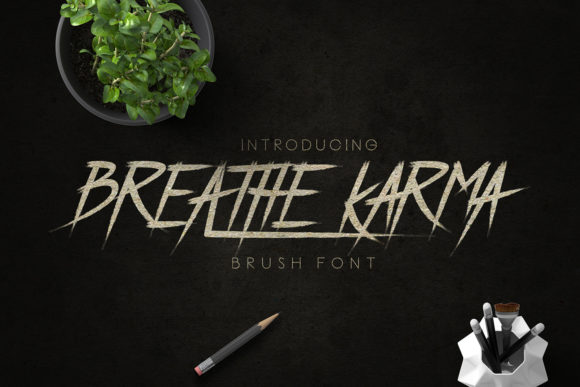
**Introducing 'Breathe Karma' - The Font That Will Captivate Your Senses**
Welcome to the world of Breathe Karma, a captivating brush-style font that will ignite your imagination and leave an imprint on your designs like no other. This exquisite creation by madeDeduk is a true masterpiece, a vintage-inspired gem with a contemporary twist that will elevate your projects to extraordinary heights.
Every stroke of Breathe Karma is a testament to the passion and artistry that went into its creation. Its elegant curves and playful flourishes evoke a sense of nostalgia, transporting you to an era of timeless wonder. Yet, this font is anything but old-fashioned; it embraces the modern with its versatility and effortless style, making it the perfect choice for a wide range of design ventures.
Whether you're crafting stunning logos, enchanting posters, or heartfelt invitations, Breathe Karma has the power to transform your words into works of art. Its authenticity and charm will add a touch of magic to your designs, captivating your audience and leaving a lasting impression.